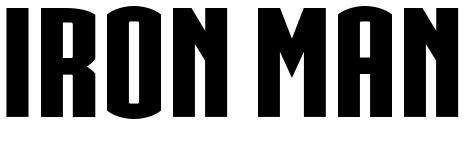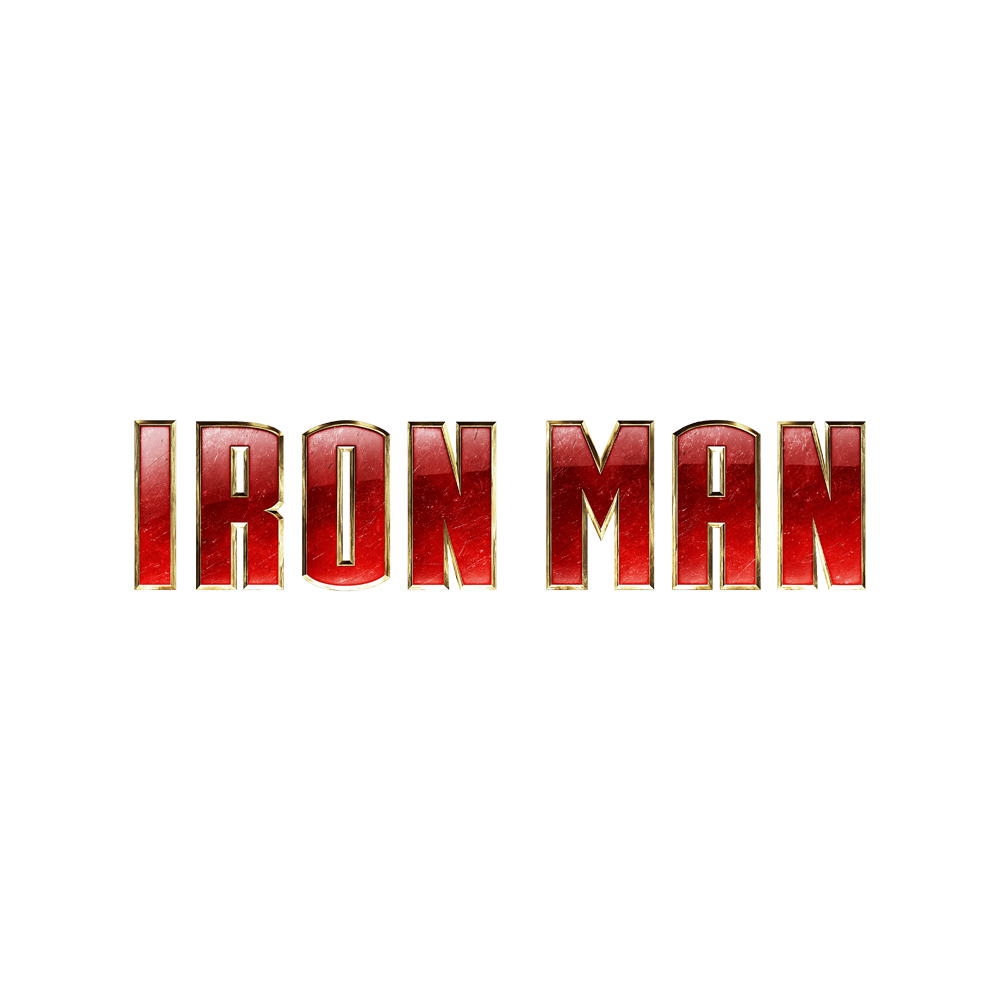
Iron Man Font
Fonts in UseIron Man is a 2008 superhero film based on the Marvel Comics character of the same name. It follows Tony Stark, a billionaire industrialist who creates a powered suit of armor to become a technologically advanced superhero.
The Iron Man logo was custom made but a fan made replica was created called IRON MAN OF WAR 2 NCV by the Fontry. The font is free for personal use.